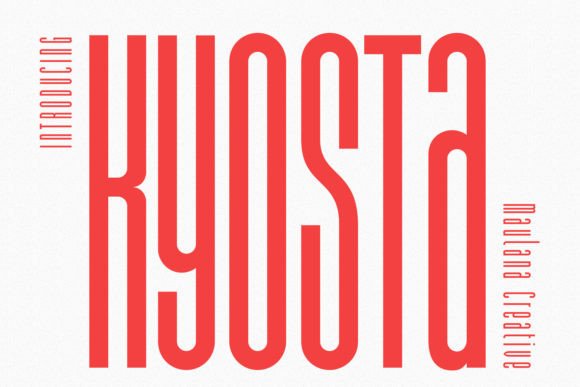
Looking for the perfect font to enhance your creative projects? Look no further than Kyosta Font, the best font for thank you letters and so much more. Created by Maulana Creative, this sans serif font is a game-changer in the world of typography.
With its tall and compressed design, Kyosta Font stands out from the crowd. Its regular stroke and fun characters are complemented by ligatures and stylistic variations, adding a touch of creativity to your work. Whether you're designing a logo, crafting social media posts, or creating captivating movie or book titles, Kyosta Font is the ultimate choice.
One of the standout features of Kyosta Font is its extensive multilingual support. With over 100+ languages covered, you can communicate your message effectively and reach a wider audience. No matter where your customers are from, Kyosta Font has got you covered.
What sets Kyosta Font apart from other fonts is its versatility. It is perfect for both short and long text letters, allowing you to express your thoughts and ideas with ease. Additionally, it works seamlessly as a secondary text font when paired with script or serif fonts, giving your designs a unique and cohesive look.
But why should you choose Kyosta Font? The answer is simple - it will elevate your projects to new heights. Its captivating and eye-catching design will grab the attention of your audience and leave a lasting impression. Whether you're writing a heartfelt thank you letter, creating stunning visuals, or designing a professional website, Kyosta Font will take your work to the next level.
Don't settle for ordinary fonts that blend in with the crowd. Stand out and make a statement with Kyosta Font. Its unique design and extensive features make it a must-have for any creative professional or business owner. Let your imagination run wild and create stunning works of art that leave a lasting impact.
In conclusion, Kyosta Font is the ultimate choice for those looking to elevate their creative projects. With its tall compressed design, fun characters, and extensive multilingual support, it is the best font for thank you letters and so much more. Embrace your creativity and make a statement with Kyosta Font today.